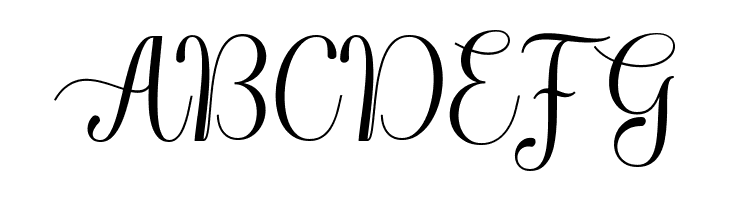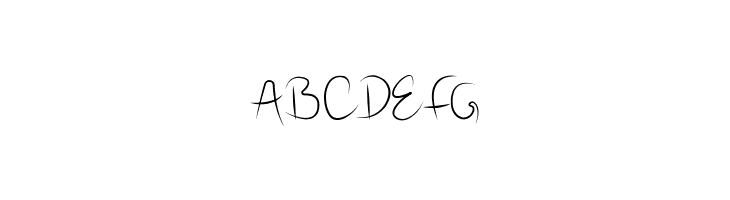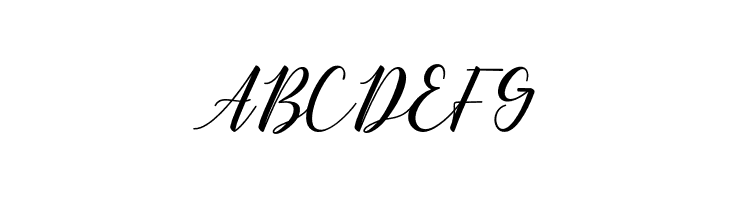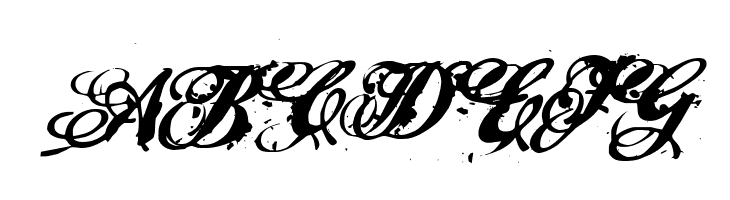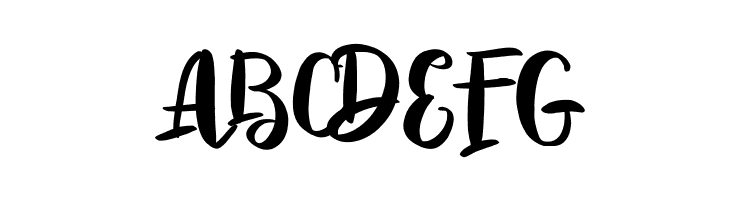
A bold, expressive brush script with dynamic strokes and artistic flair.
A whimsical, cursive font with flowing, interconnected strokes and elegant flourishes.
A lively and elegant script font with bold, fluid strokes.
An ornate and decorative script font with bold strokes and intricate flourishes.
A modern, elegant script font with flowing, sophisticated characters.
A playful handwritten font with fluid, energetic strokes.
A graceful script font with fluid, connected strokes and elegant flourishes.